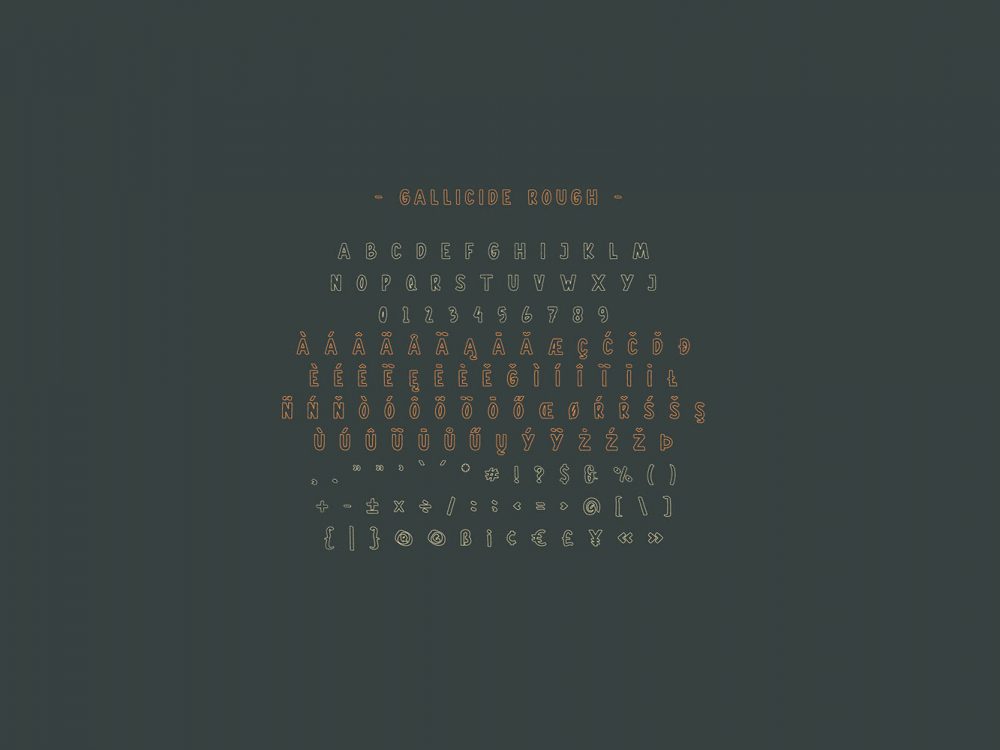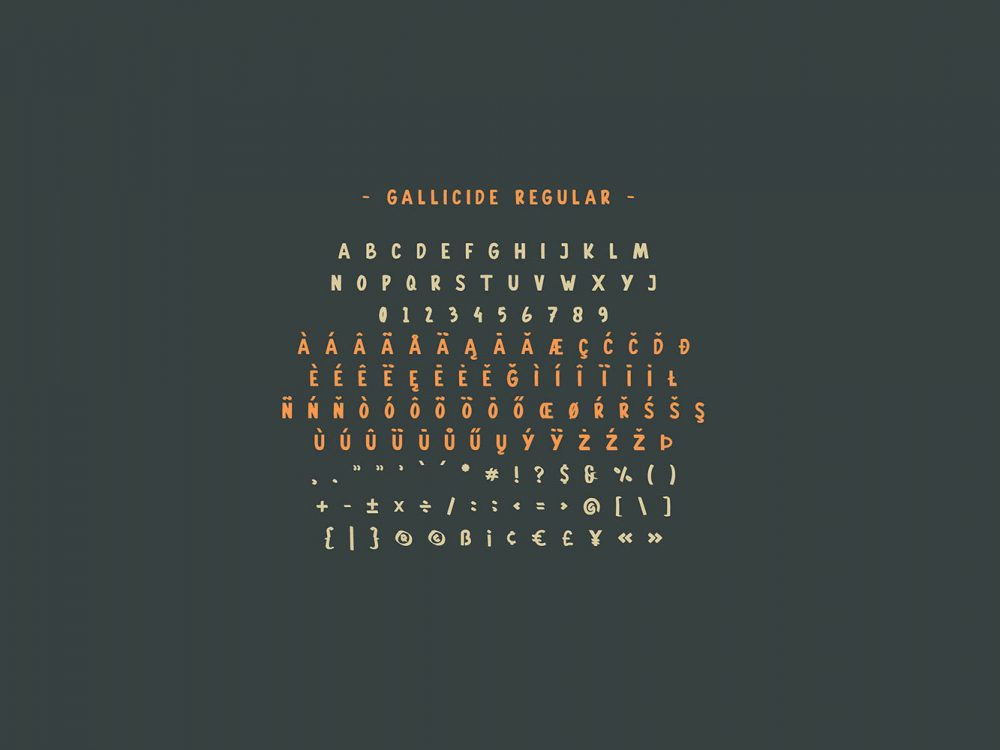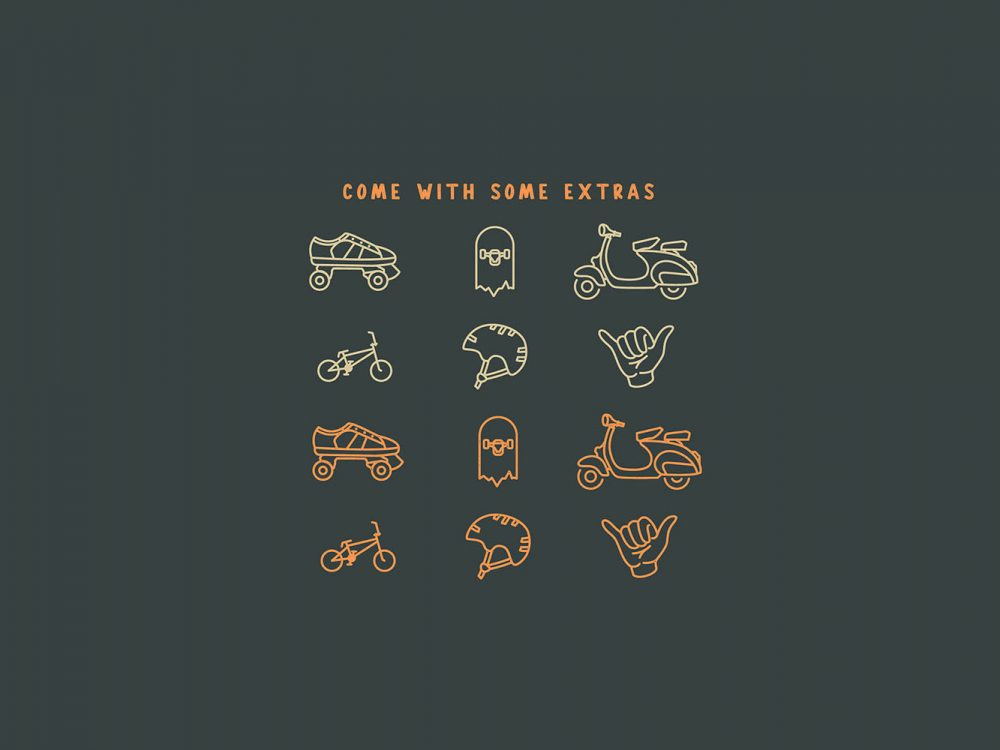
Gallicide Display Font Family
Gallicide Display Font Family is an interesting bold typeface with a detailed texture that is perfect for creating projects that require a vintage look. Use this font to create vintage posters, postcards, outdoor advertisements, logos, branding, prints, and more. If you wish to access more features and use them for commercial work please buy the full version.